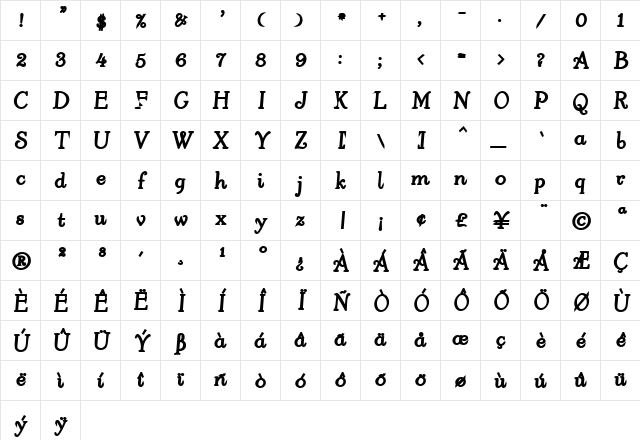
4ArmJoltScriptExtraBold Regular
Design Context for 4ArmJoltScriptExtraBold
4ArmJoltScriptExtraBold flows with the natural rhythm of handwritten lettering, making it ideal for designs that call for warmth and personal expression. Its bold stroke weight gives it real presence on the page.
Font Pairing: Combine 4ArmJoltScriptExtraBold with a simple geometric sans for maximum contrast - the tension between flowing curves and clean structure is a classic typographic pairing.
Pro Tip: Use 4ArmJoltScriptExtraBold for short runs of text - names, titles, or taglines. Extended body copy in script faces tires the eye quickly.